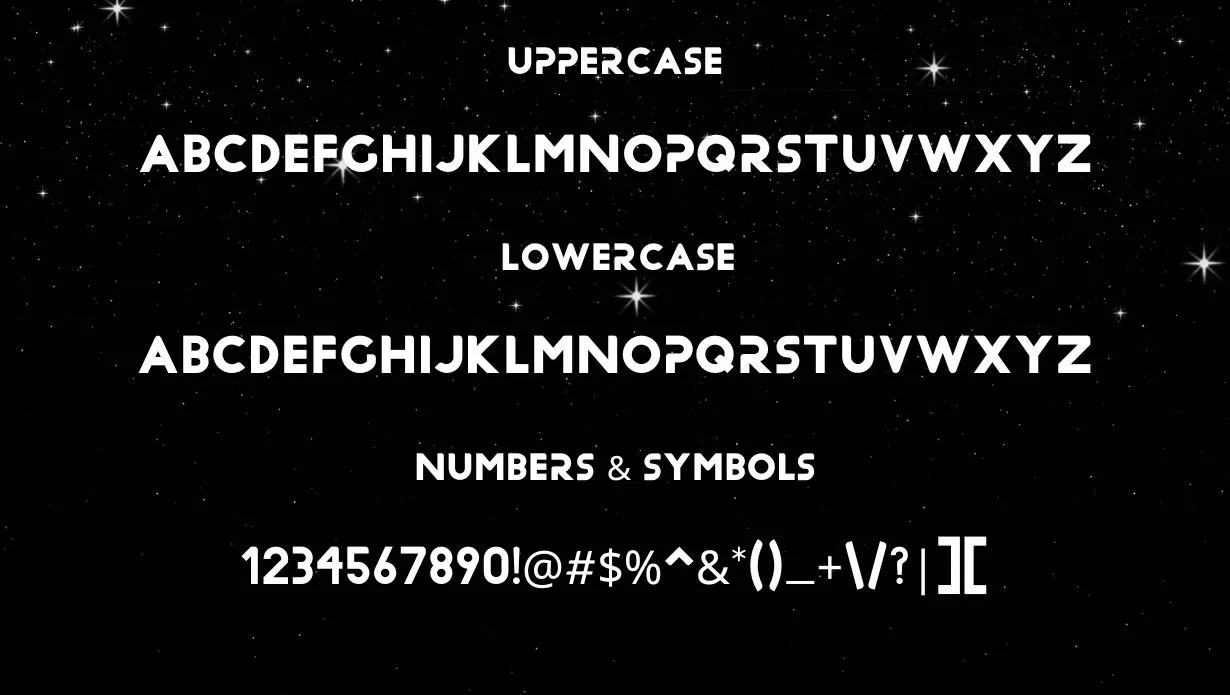
The Current font offers a clean and modern appearance, lending a fresh look to designs. In Adobe Photoshop, it creates visually appealing and contemporary designs, ensuring a modern touch.
| Name | Current Font |
| Designer | Matt Pendrill |